The following guide provides a clear overview of Photoshop, with the most relevant background, details, and practical takeaways.
Choose the Right Font Family
When searching for suitable font families to use, you will see there are many options available. So how do you choose the font family that best suits you? Adobe Photoshop comes with different integrated fonts, useful in any case and the article tried to find the best typefaces for you.
The Best Photoshop Typefaces
1. Times New Roman
Let's start with Times New Roman. If you're looking for an easy-to-read, or not too flashy typeface, Times New Roman is one of the best options. Times New Roman is one of the most widely available, popular fonts and Photoshop has included this font in the program.
First created in the 1920s, Times New Roman is often used for text content in newspapers, magazines and books. Times New Roman is preferred because it is easy to read and appears widely in digital programs.
2. Baskerville
Another classic typeface that comes with Photoshop is Baskerville - a more compact alternative to Times New Roman. Baskerville is quite easy to read and neatly arranged letters, does not occupy much space on the page when applied.
Although not as popular as Times New Roman, Baskerville is also suitable for textual content, even for headlines.
3. American Typewriter
Are you looking for a slab serif font (large and thick typeface) for the content of a paragraph? Do you want a more modern and simpler font than Times New Roman? American Typewriter is the best choice for this case and gives the document a bit classic.
4. ITC Edwardian Script
Now, you know the most basic typefaces. But what if you want a font that looks like cursive?
Photoshop has a few such fonts, but one of the best options is the Edwardian Script ITC - an elegant, balanced typeface that looks great when placed on wedding invitations, thank you cards and invitation letters. Feast.
However, TipsMake. Com recommends using this font for the body of text because it is not as easy to read as the other options on this list.
5. Montserrat
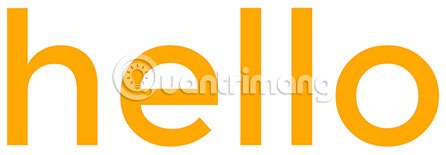
Of course, not all fonts have a classic appearance. You may be looking for a 'friendly' web font, easy to read on a mobile device or something that closely follows the current design trend. One of the most useful typefaces of this genre is Montserrat, with bold, wide Word spacing, suitable for use in the title and main idea in the lesson.
A small warning is that this font is not suitable for the content text. The size of large letters means it takes up a lot of space.
6. Century Gothic
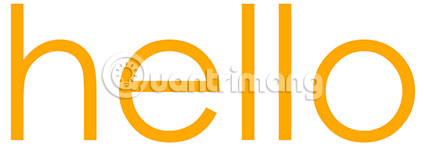
Century Gothic is a sans serif typeface that looks better when compared to Montserrat. You can use this typeface for headlines and main ideas, sometimes for short paragraphs as well. But be careful because if the paragraphs are too long, Century Gothic will make the content difficult to read.
7. Helvetica
It is difficult to choose which font is best because there are too many fonts. The decision depends on the individual preferences of each user. If you are looking for a simple, modern typeface suitable for almost all designs, from professional reports to travel brochures, take a moment to consider Helvetica.
Helvetica is a widely used font, thanks to its versatility and readability. Helvetica works well with the title, main idea and content text. Because the spacing between letters is beautifully divided, your design will look more perfect if the font is applied.
8. Phosphate
If you are looking for a fun typeface for advertising, one of the best options available in Photoshop is Phosphate, a bold typeface, the width of the perfect letters for the title to the title, and help. Attract viewers' attention on the posters. Because the size of Phosphate is quite large, you should not use this font for the content text.
9. Bauhaus 93
The Bauhaus 93 will be a good candidate if you are looking for a more flexible, friendly and fancy font than Phosphate. Like Phosphate's 'neighbor', this font is big and bold, best used for posters and brochures.
10. Braggadocio
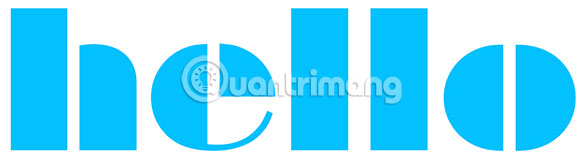
Last but not least, one of Photoshop's best serif designs is Braggadocio, bold, super-stylized typeface that instantly draws the attention of viewers. Braggadocio is very suitable for games with retro design, but don't overdo it, otherwise the text will become very difficult to read.
You have been introduced to the typefaces that come with Photoshop, you should try them to see which ones fit your personal preferences.
As mentioned before, the design is often subjective and there may be some fonts that are not in this list more suitable for the document you are working on. The advice is still to try each one to find the best option.